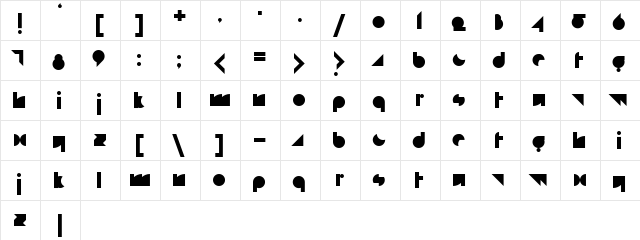
white rabbit Regular
Design Context for white rabbit Typeface
white rabbit is a composed and adaptable typeface that performs quietly and consistently across a wide range of design contexts.